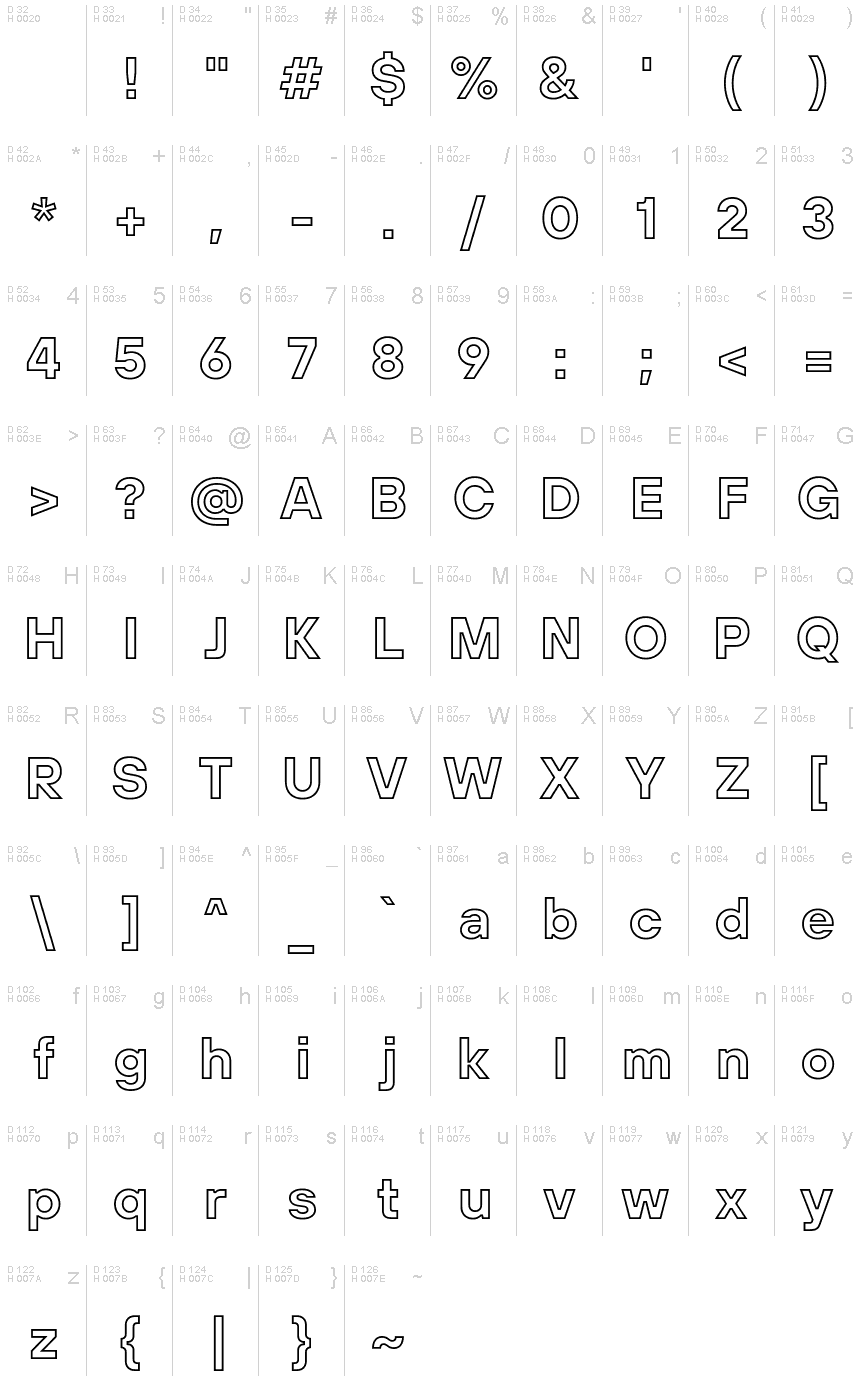
TT Hoves Pro Bold Outline is a stunning addition to the sans serif typeface family by TypeType Foundry. Its bold outline style adds a touch of modernity and sophistication to any project.
The sharp edges and clean lines make it ideal for eye-catching headlines, logo designs, or branding materials. With its versatile nature, this font is perfect for both digital and print applications, including websites, posters, magazines, and advertisements.
TT Hoves Pro Bold Outline will effortlessly enhance your design projects with its contemporary appeal and unique flair.
Designed by Ivan Gladkikh, Pavel Emelyanov, Yulia Gonina, Marina Khodak, Radik Tukhvatullin, Nadyr Rakhimov. Technical designers Nadezhda Polomoshnova, Kseniya Karataeva, Olexa Volochay, Yuriy Nako, Tasya Petelina, Anastasia Pogorelova, Victor Rubenko.